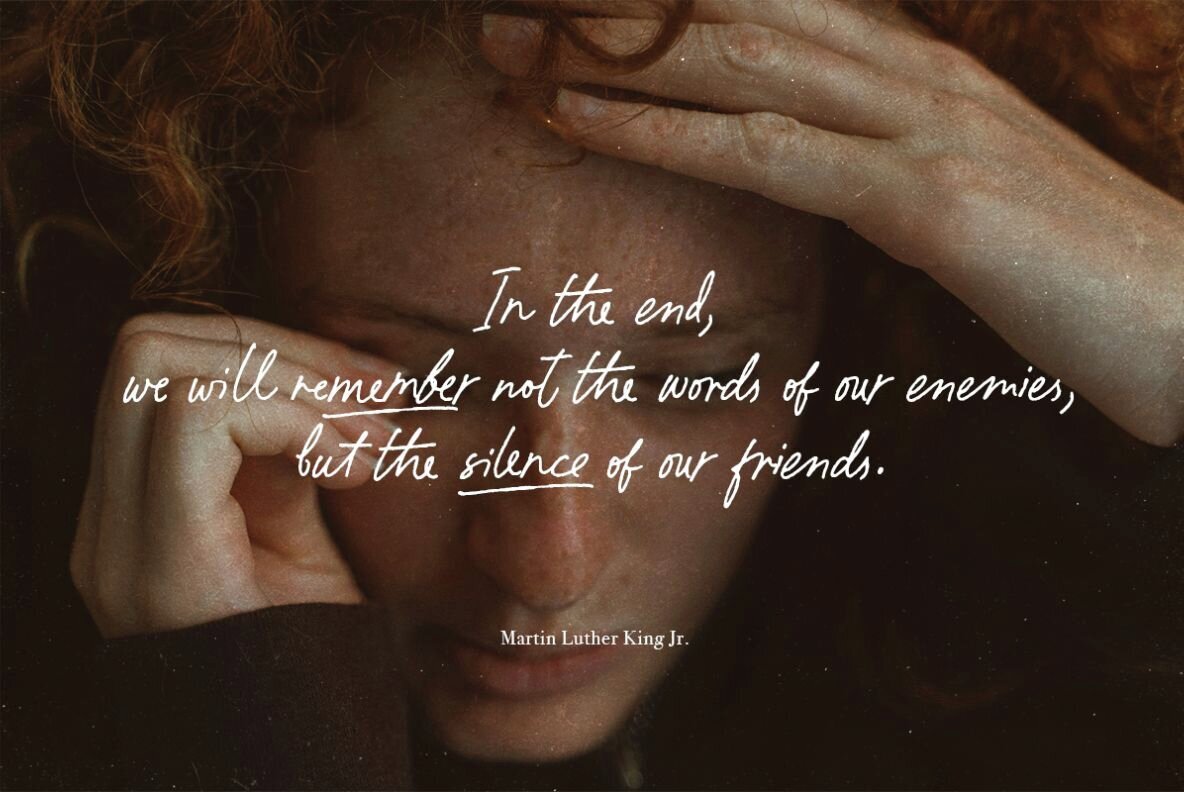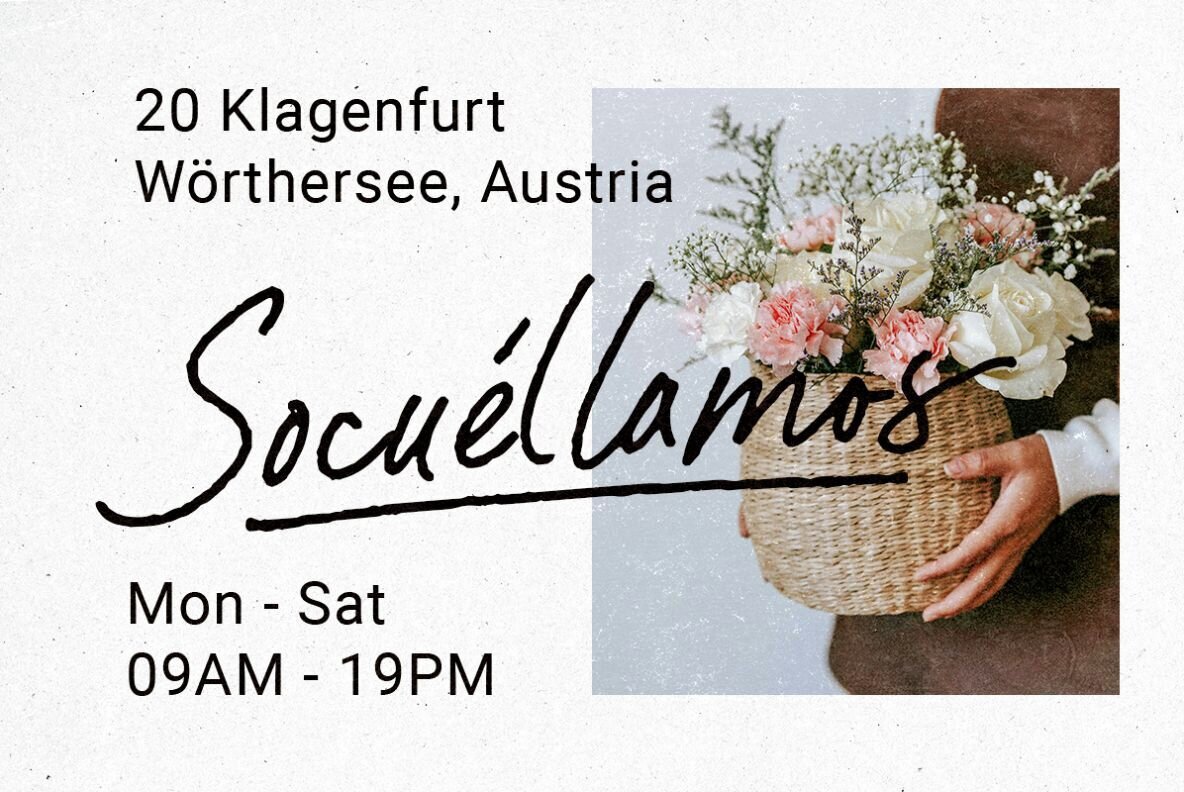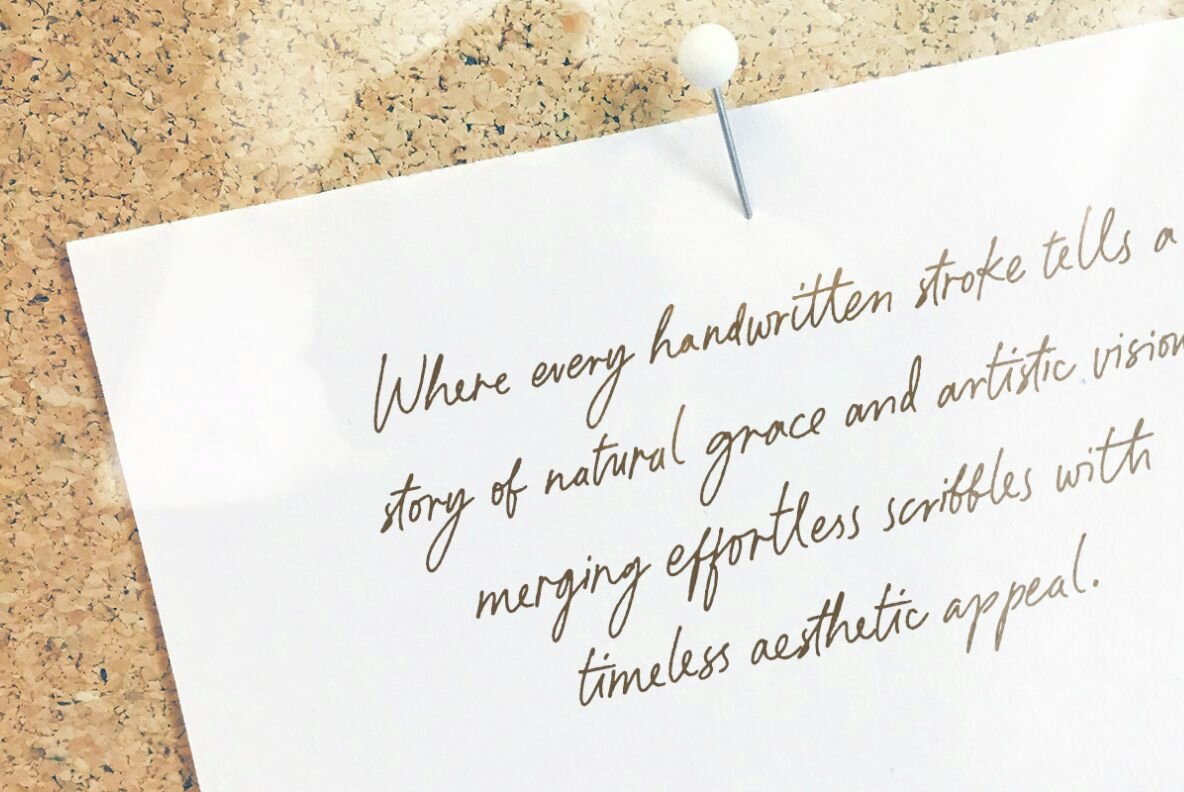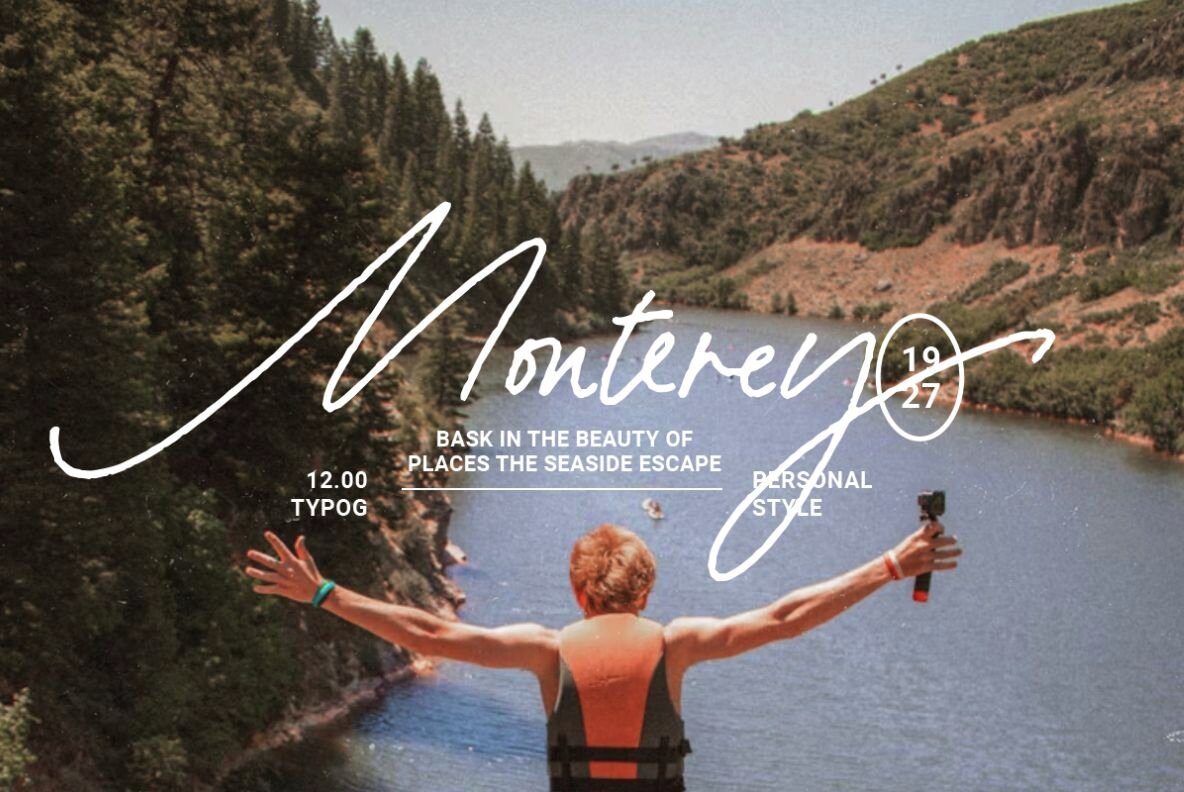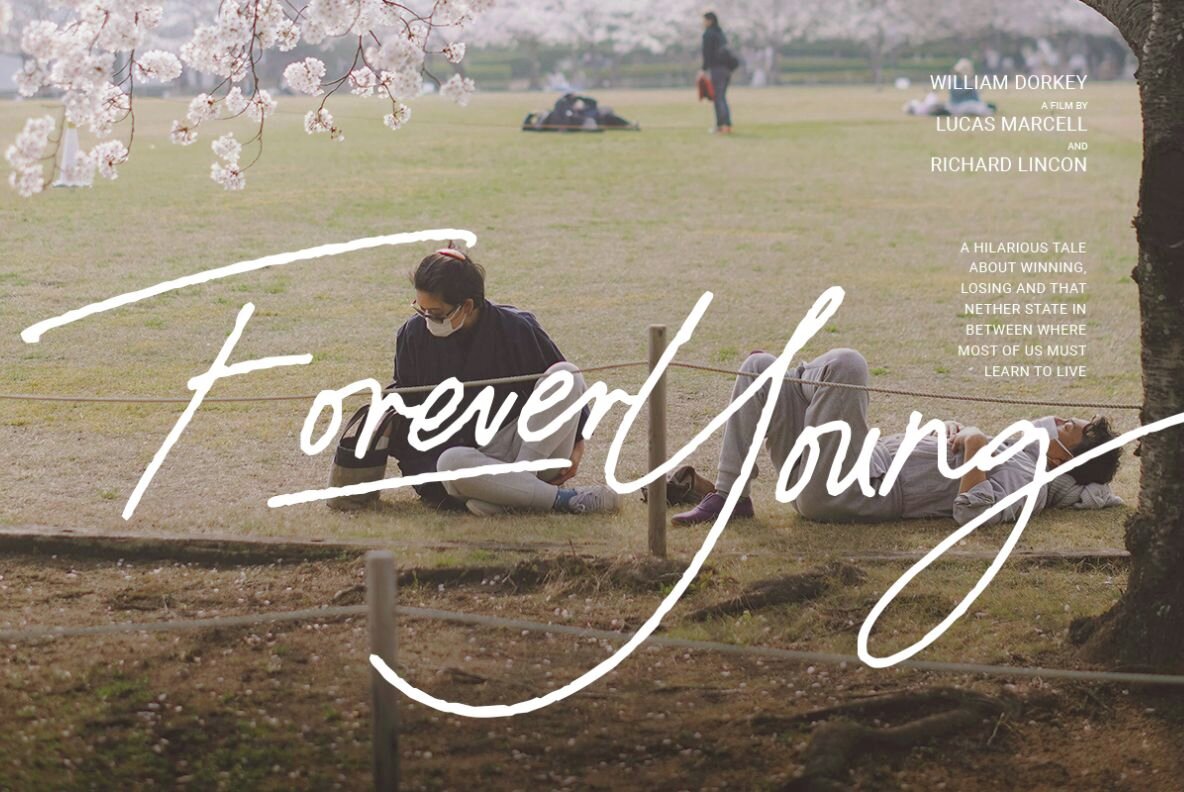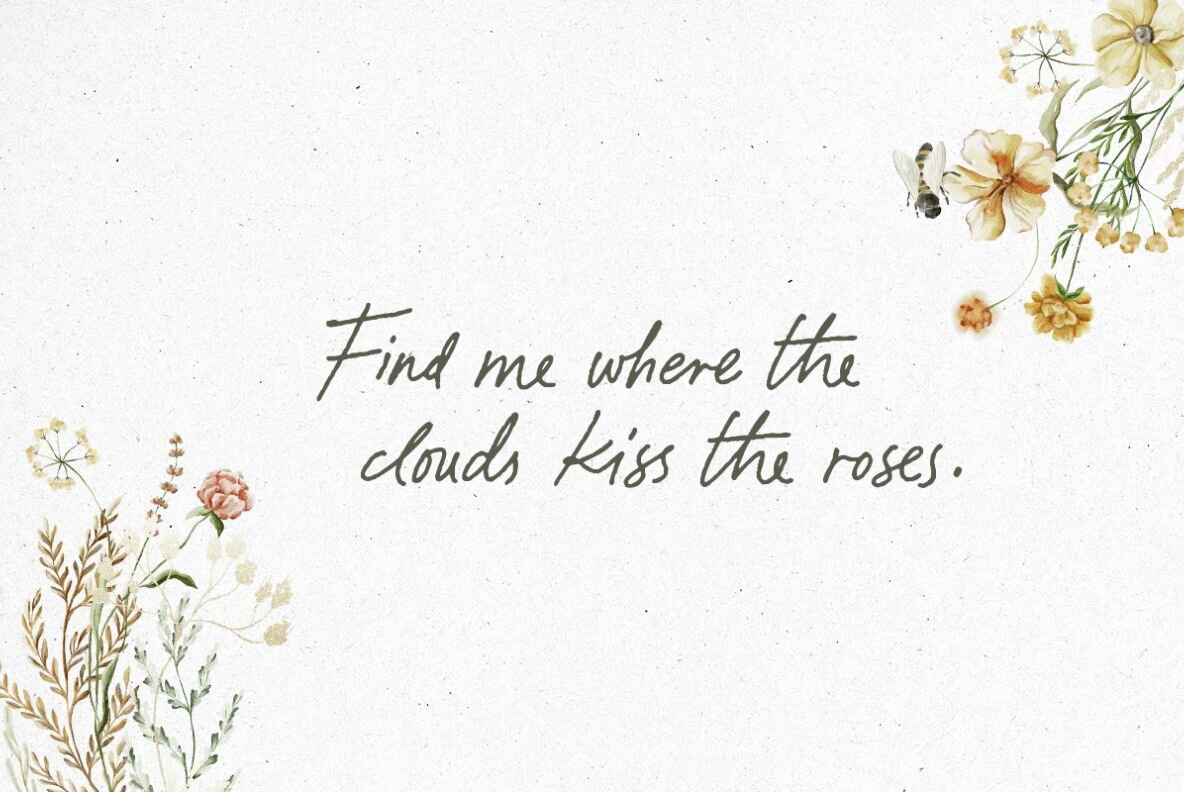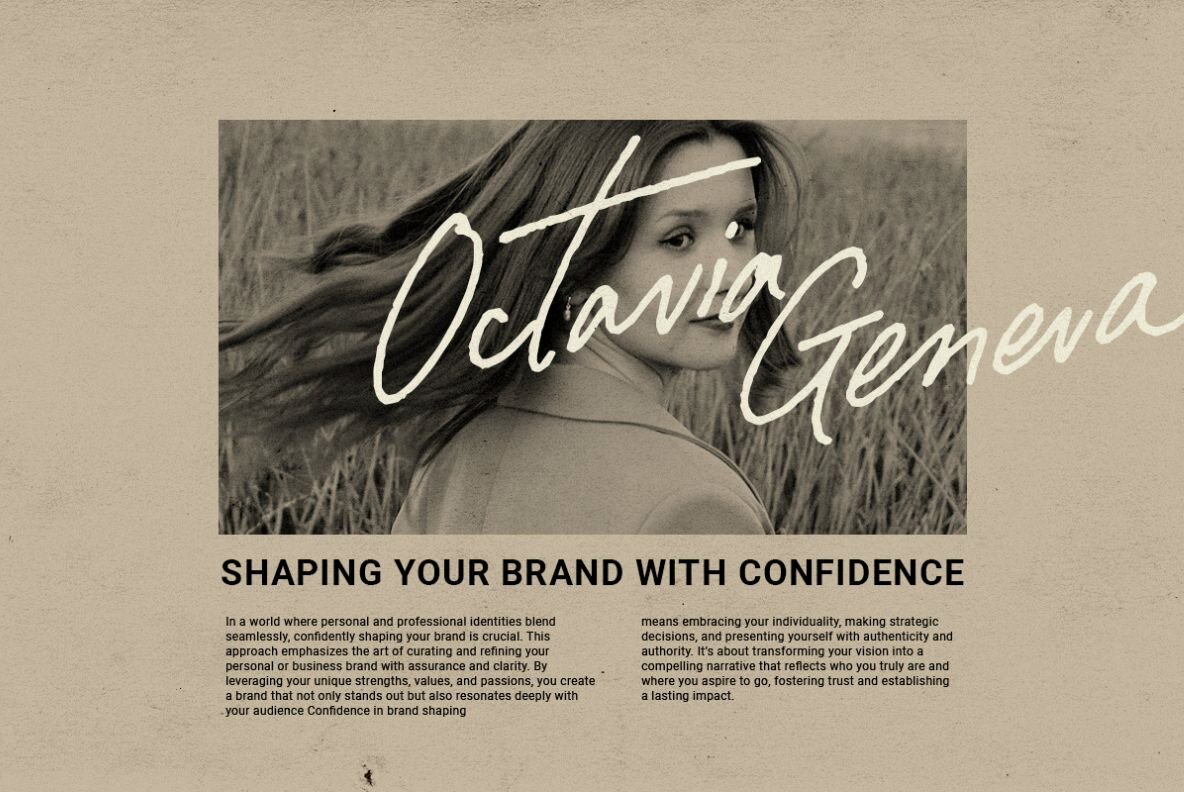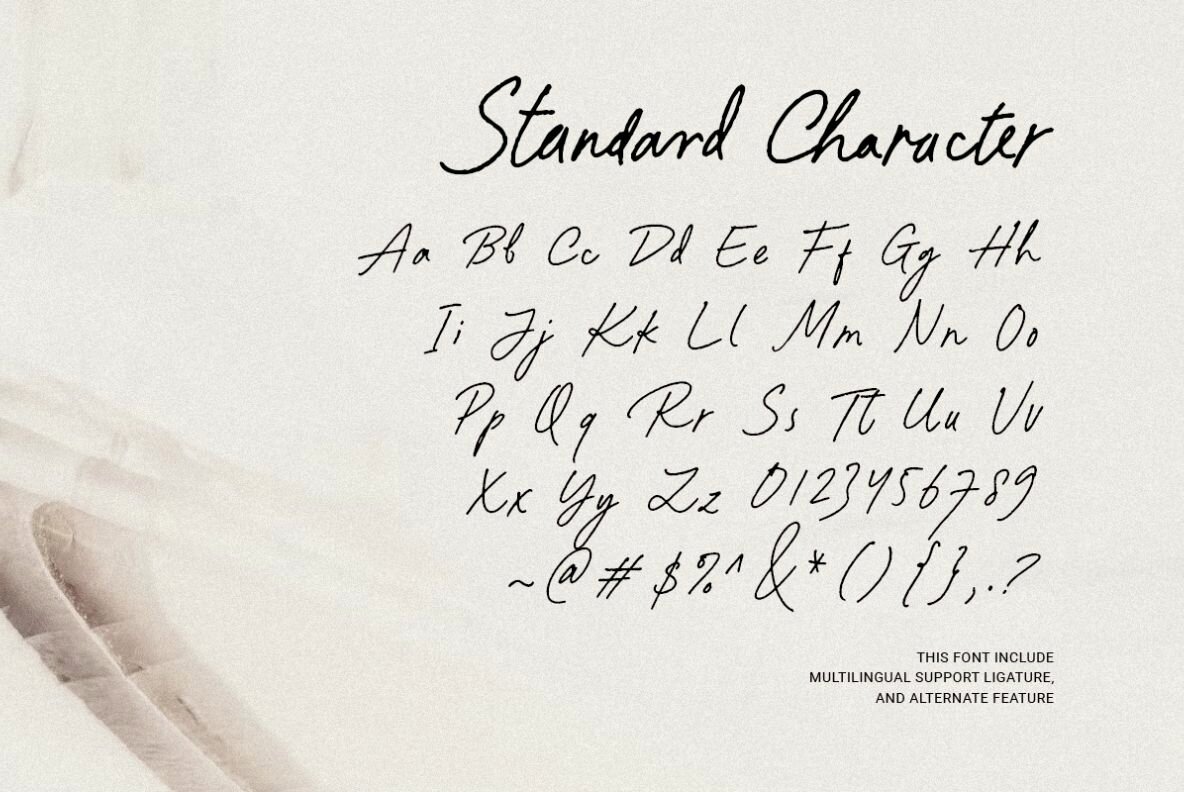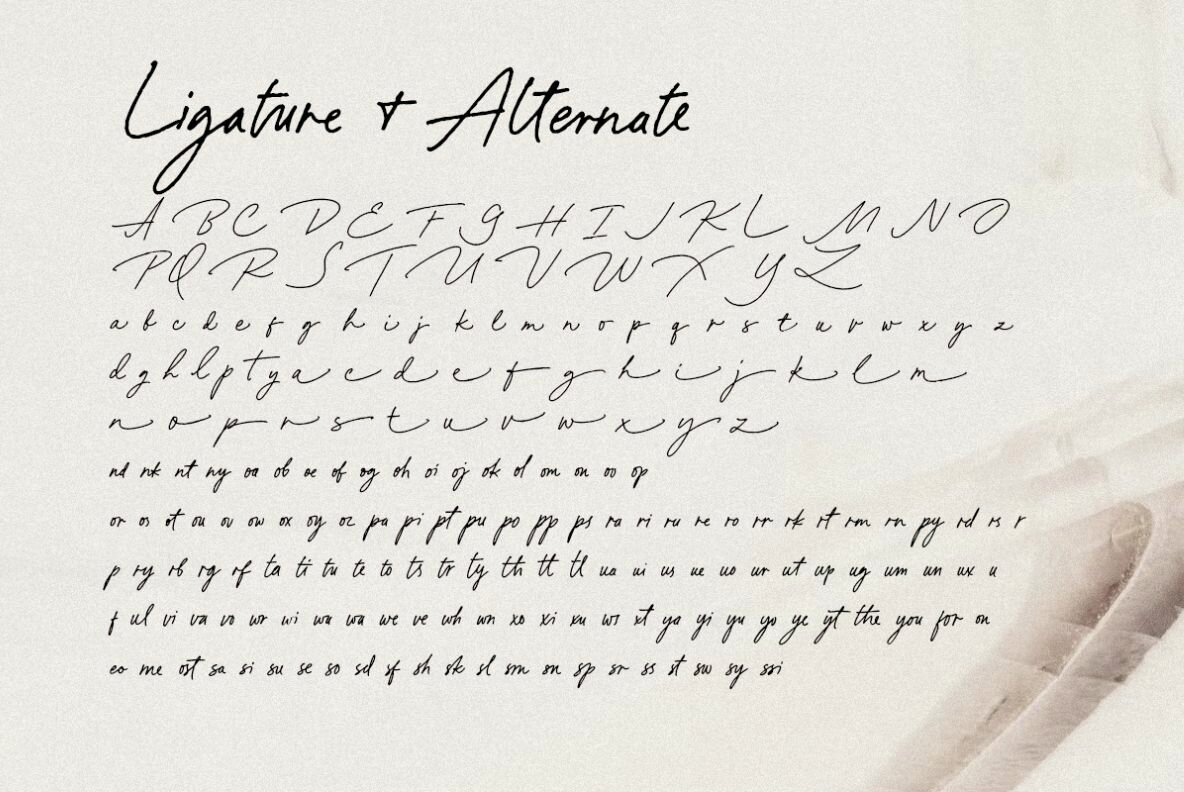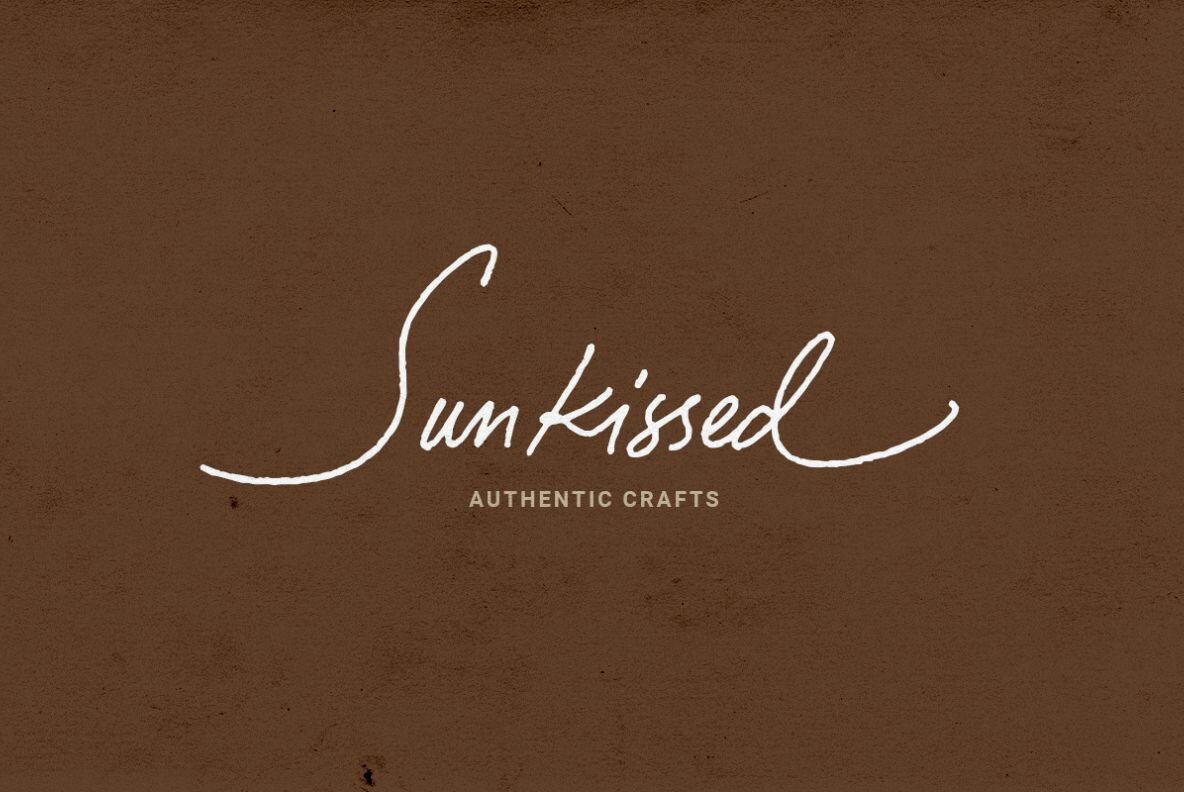
Paradine Font
Paradine Regular
Paradine Alt
Paradine is a handwritten script font designed to add a natural, hand-crafted feel to your projects. With a wealth of ligatures, Paradine ensures that your text appears seamlessly written by hand. Ideal for use on labels, logos, handwritten quotes, and wedding invitations, this font brings a personal touch to any design.
Additionally, Paradine offers stylish alternates that provide a different vibe, making it perfect for headlines and other prominent text. The font also supports multiple languages, allowing for broader application across diverse global projects. Whether for a formal invitation or a creative label, Paradine delivers an authentic, versatile script.